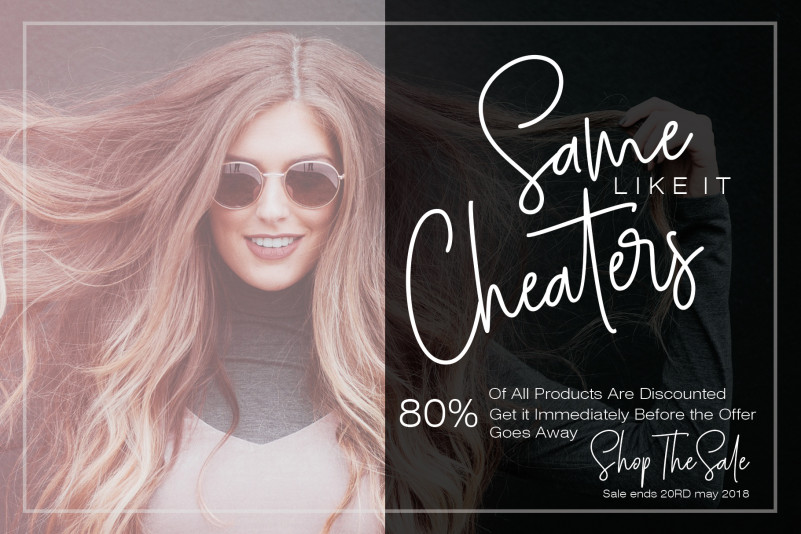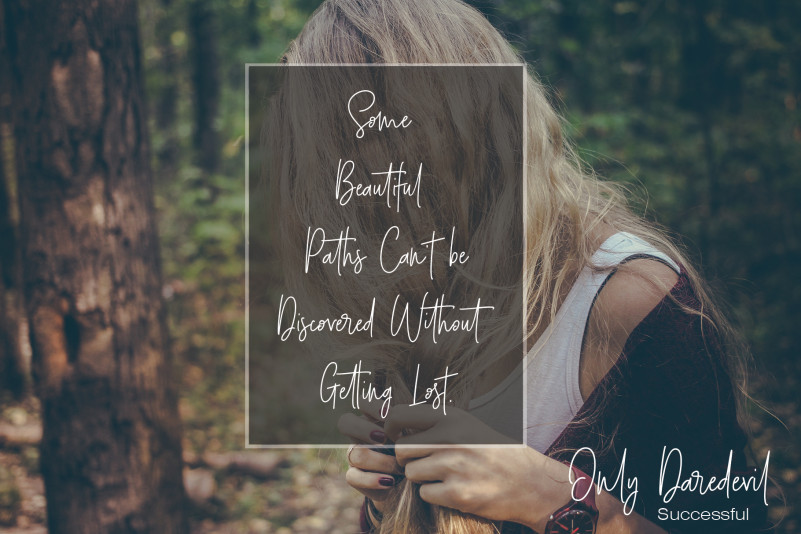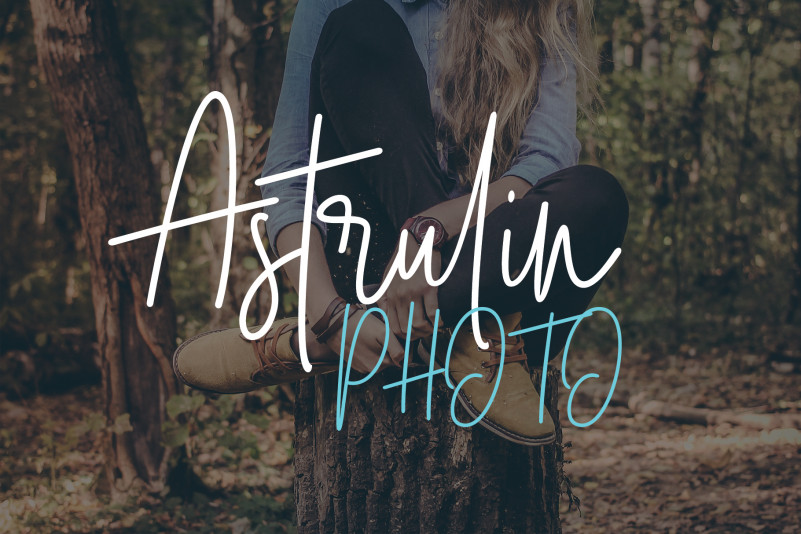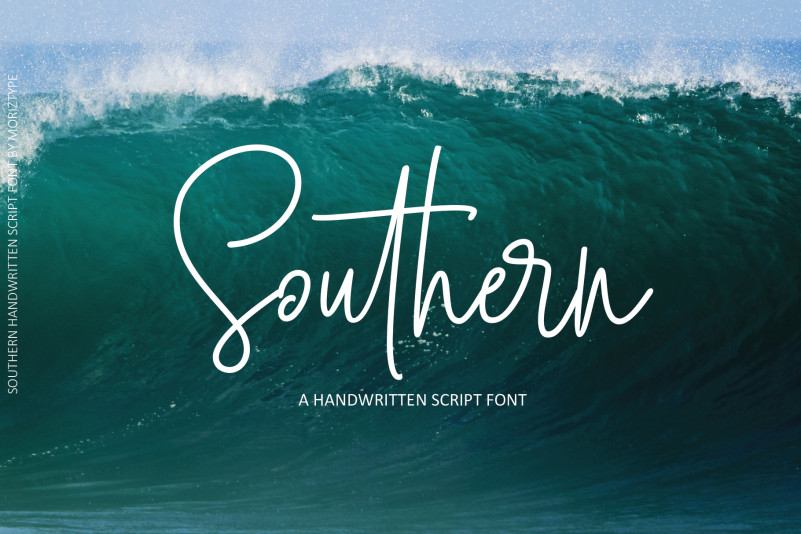
Southern Font
With its elegant charm and extra rocking bottom line, Southern has an unmistakable charm; a clean & classy signature-style font set, Southern is perfect for creating authentic hand-lettered text quickly & easily.